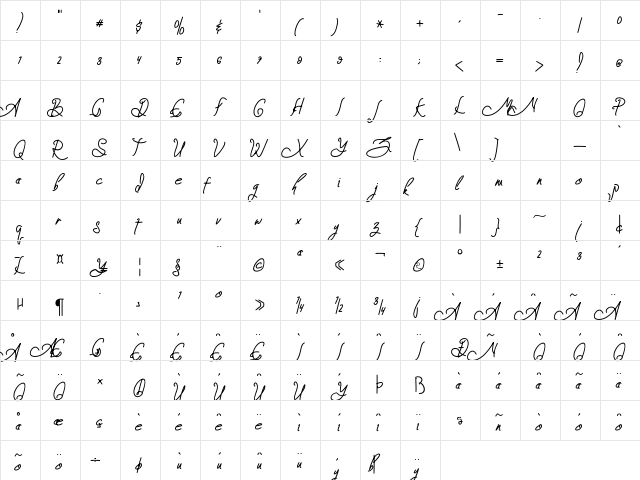
Zeinstore Regular
Design Context for Zeinstore Typeface
Zeinstore is a composed and adaptable typeface that performs quietly and consistently across a wide range of design contexts.